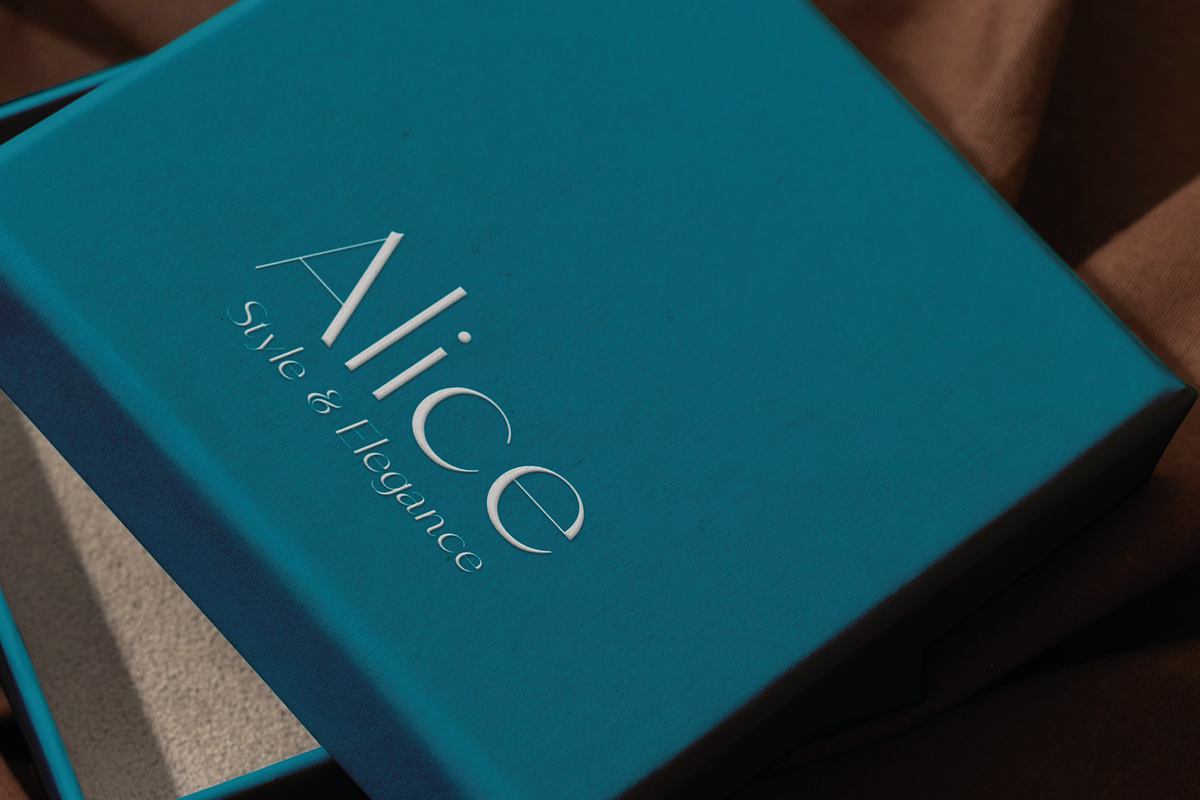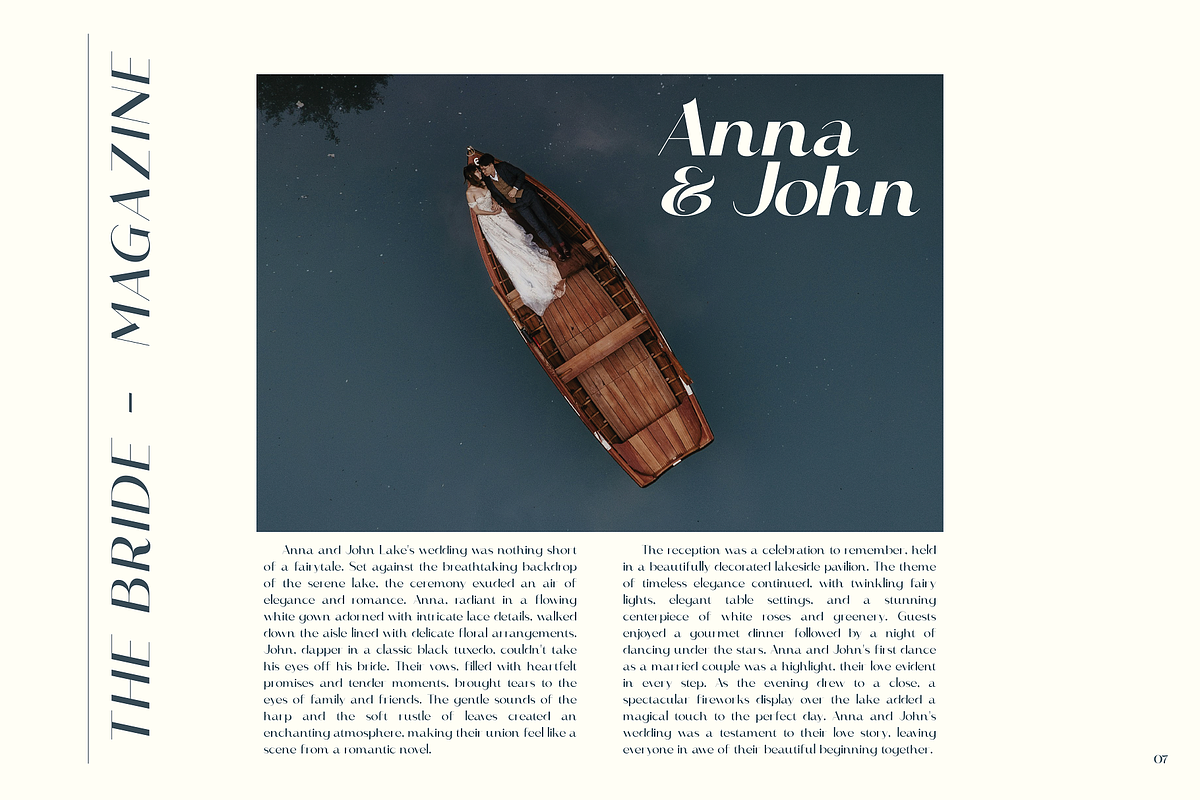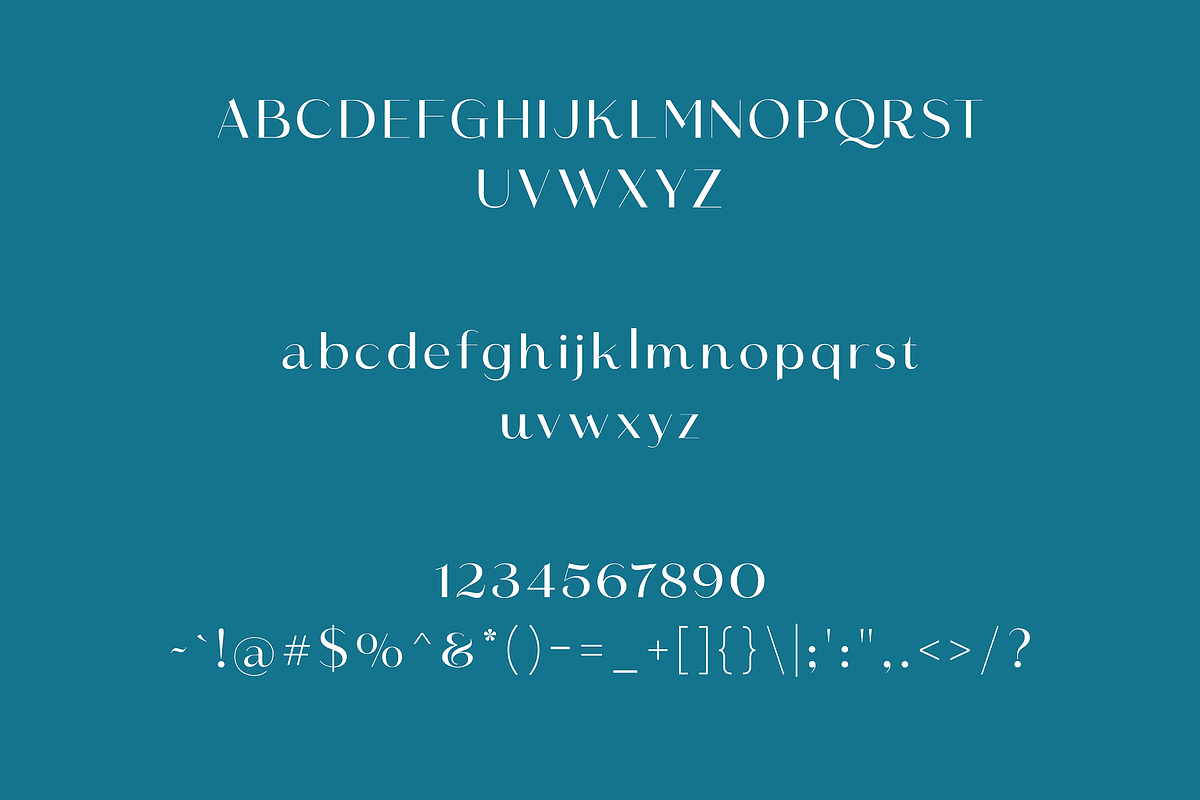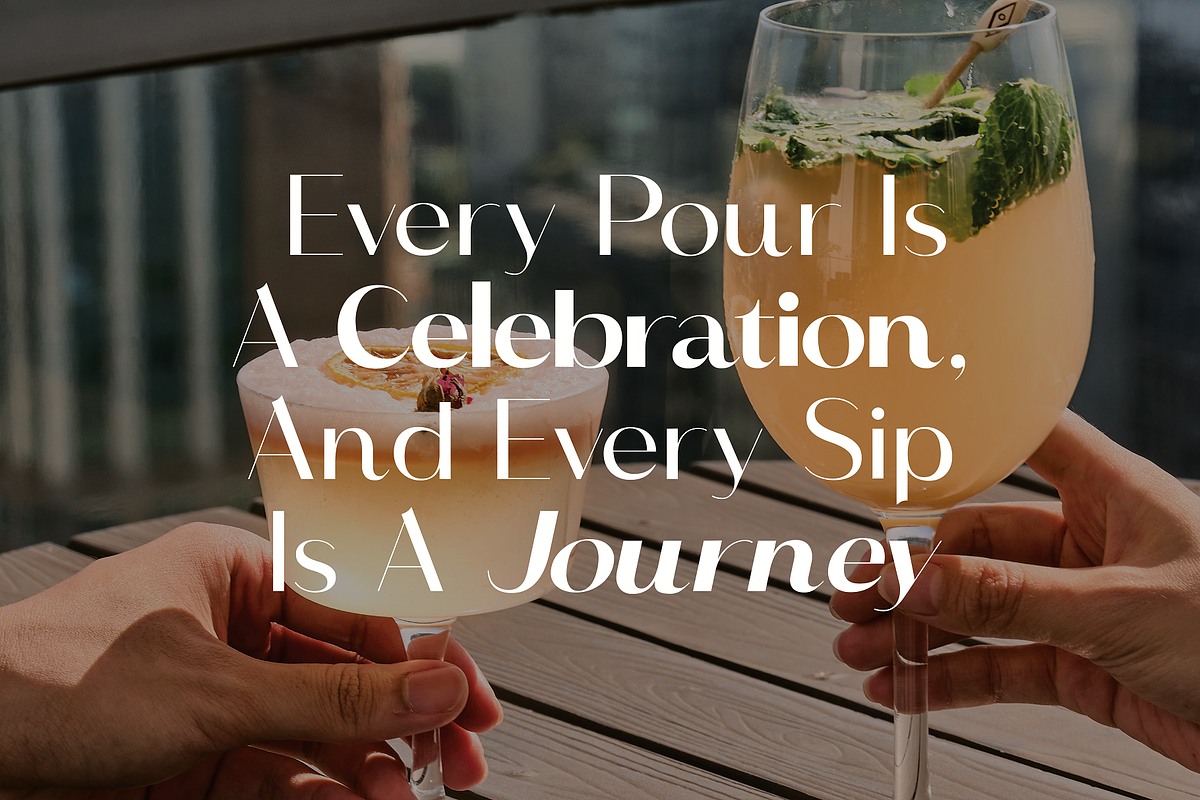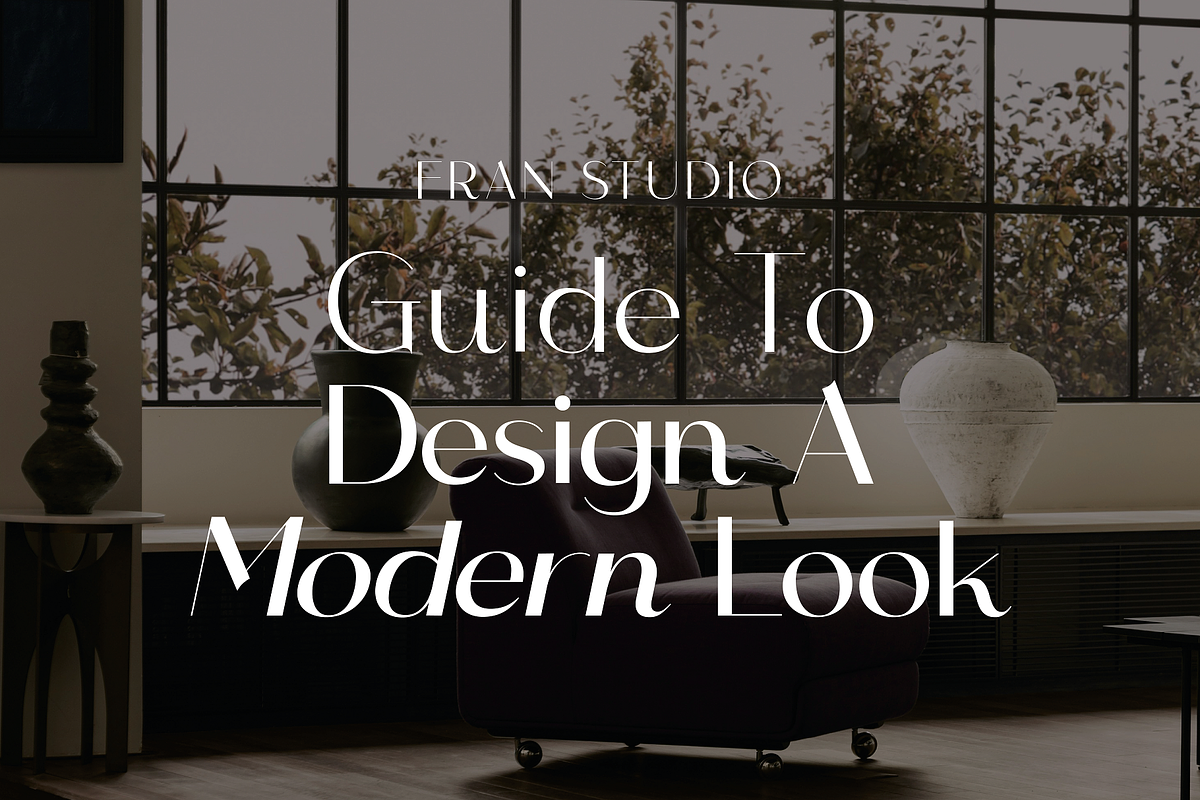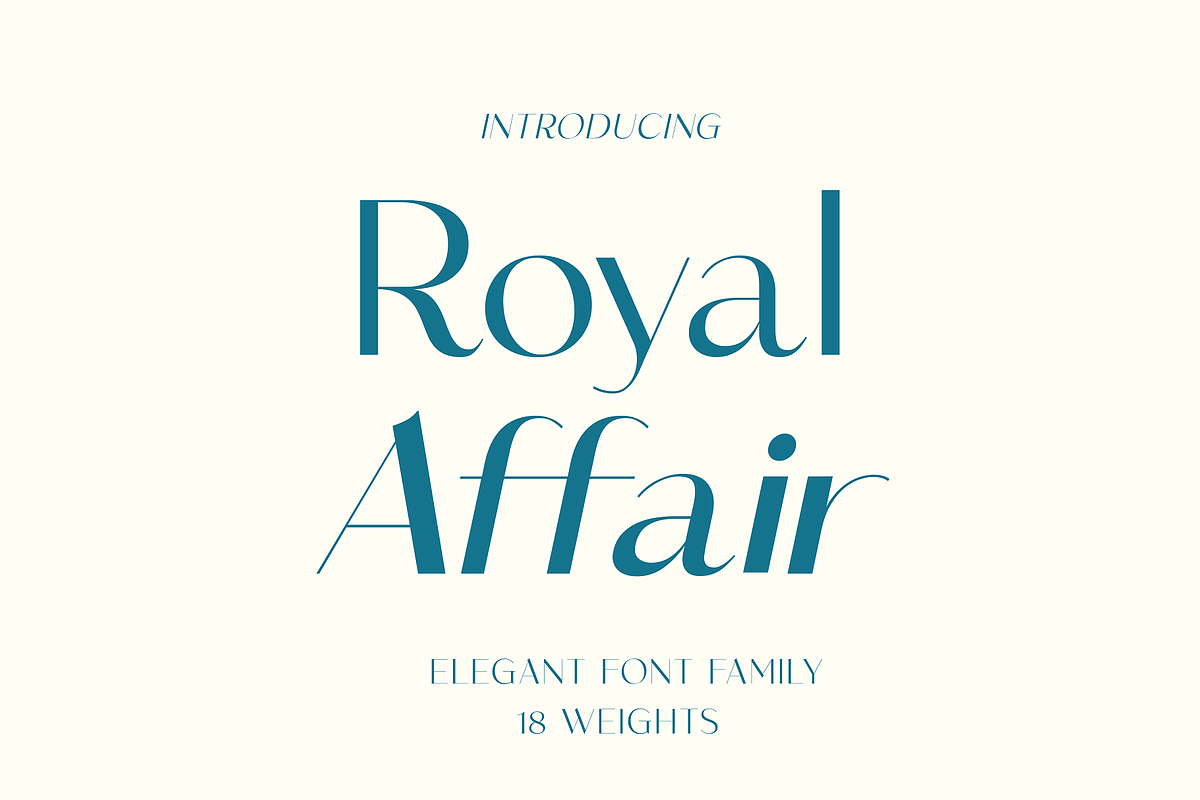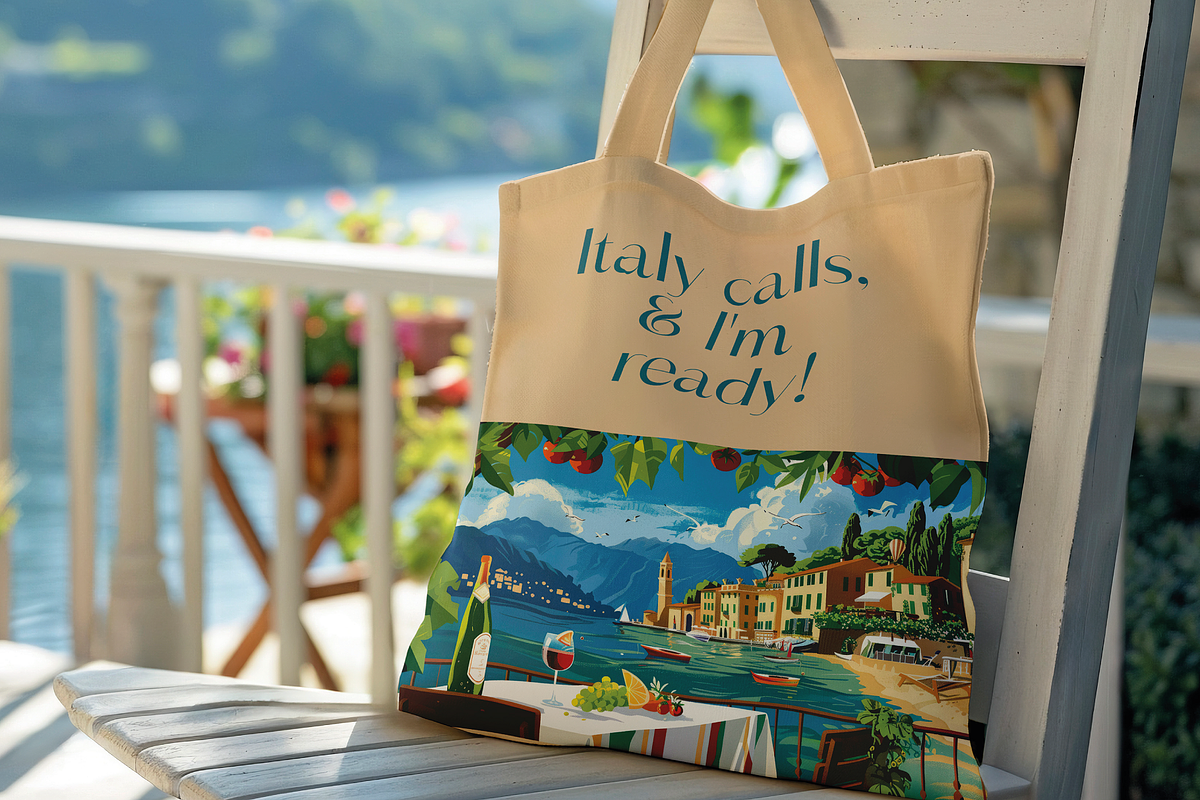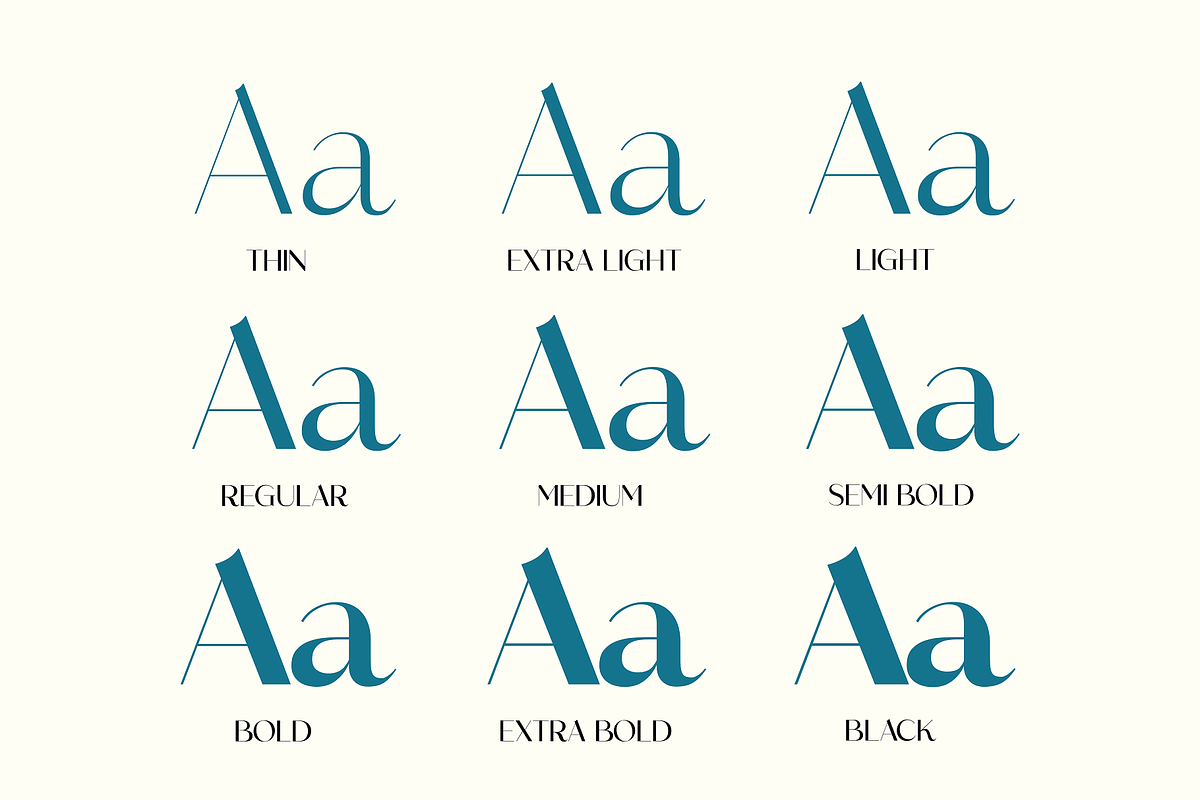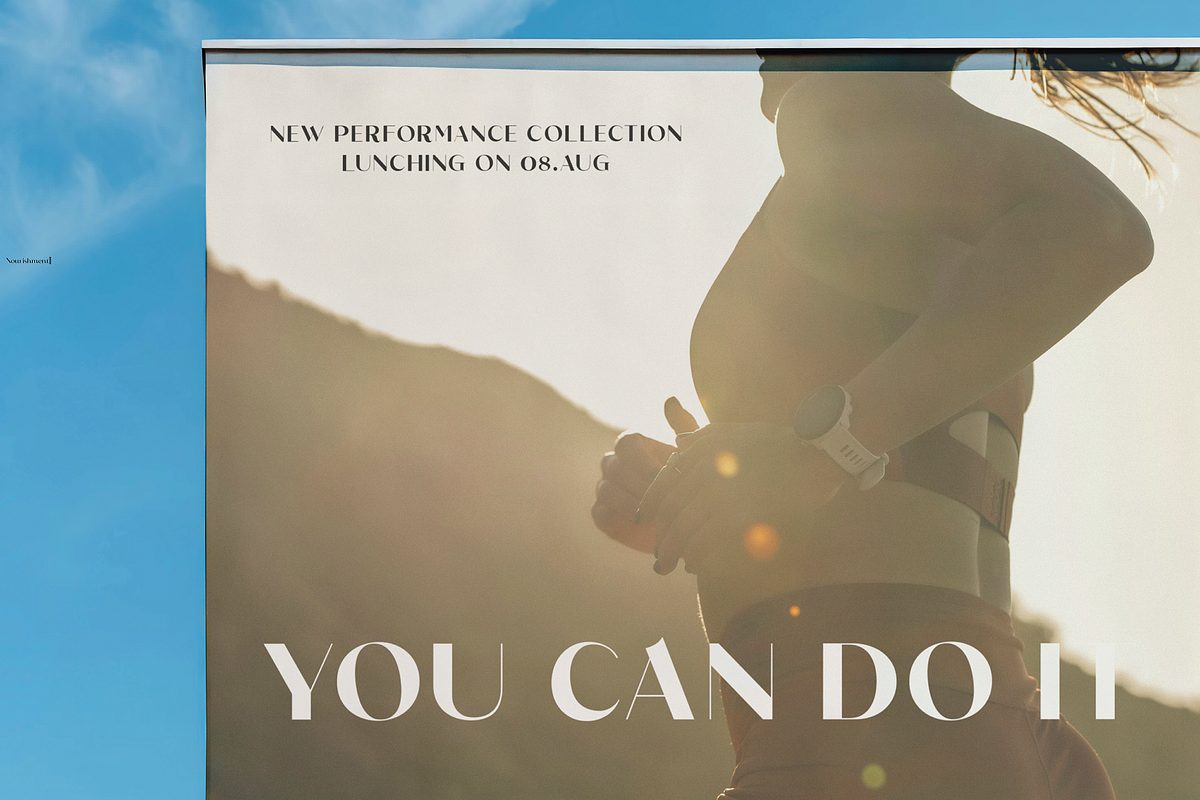
Royal Affair - Classy Wedding Type
Introducing Royal Affair, a sophisticated and elegant wedding typeface that simply oozes class and royalty. Designed to capture the essence of opulence and grace, Royal Affair is the perfect choice for couples looking to add a touch of regal splendor to their special day.
Royal Affair features beautifully crafted letterforms with delicate curves and exquisite details, reminiscent of timeless calligraphy. This typeface exudes an air of luxury and refinement, making it ideal for wedding invitations, save-the-dates, menus, and other wedding stationery.
Each character in Royal Affair is meticulously designed to ensure perfect harmony and balance, creating a seamless flow that enhances the overall aesthetic of your wedding materials. The typeface includes a range of elegant ligatures and alternate characters, allowing for versatile and personalized designs that truly stand out.
Whether you're planning a grand royal-themed wedding or a sophisticated intimate affair, Royal Affair adds a majestic touch that elevates your event to new heights. From ornate invitations that set the tone for your celebration to exquisite place cards that guide your guests with grace, Royal Affair ensures every detail of your wedding exudes unparalleled elegance.
Let Royal Affair be the crowning jewel of your wedding stationery, transforming your special day into a timeless celebration of love and luxury. With its sophisticated charm and royal allure, Royal Affair is the quintessential typeface for weddings that demand nothing less than perfection.